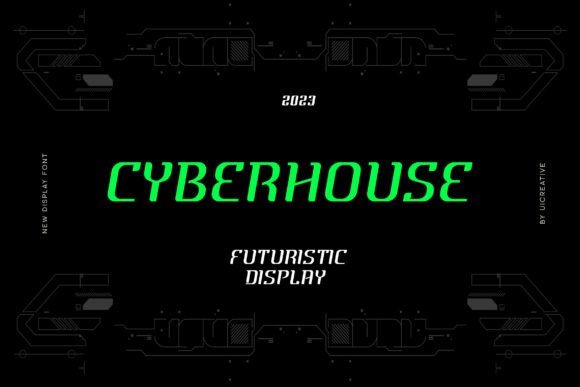
Unlocking the Future of Design: The Allure of Cyber House Font
Have you ever stared at a blank page, waiting for the perfect font to spark your creativity? That’s exactly what happened to me when I discovered the Cyber House Font. Its sleek, futuristic design was like a key that unlocked a world of possibilities.
The Cyber House Font is a modern display font that exudes elegance and sophistication. Designed to make a statement, it’s perfect for a wide range of projects, from signature and stationery to logo design and magazine covers. What sets it apart is its ability to seamlessly blend masculine and feminine qualities, making it a valuable asset for designers who want to create visually stunning pieces.
With its versatility and timeless appeal, the Cyber House Font is a must-have for any designer looking to elevate their work and stay ahead of the curve.
Cyber House Font Key Features
- Character Set: The font includes a comprehensive character set, covering Latin, Cyrillic, and Greek alphabets, as well as a range of punctuation marks and symbols.
- Unique Characteristics: Cyber House Font features a futuristic, high-tech aesthetic with geometric shapes and bold lines, making it ideal for sci-fi, tech, and gaming projects.
Cyber House Font Review
I recently had the chance to work with the Cyber House Font, and I’m excited to share my honest thoughts with you. ✨ One thing that really stands out about this font is its unique blend of futuristic and retro elements. The subtle neon accents and rounded edges give it a truly distinctive look that’s sure to grab attention.
Another aspect that I appreciate about the Cyber House Font is its versatility. It works well for a variety of applications, from futuristic sci-fi projects to retro-futuristic art pieces. I’ve found it to be particularly effective for creating eye-catching headlines and titles.
While the Cyber House Font has a lot to offer, there are a few limitations that I want to mention. ⚠️ First, the font may not be the best choice for body text, as it can be a bit too ornate and overwhelming for large blocks of text. Additionally, the font’s unique style may not be to everyone’s taste, and some users may find it too flashy or over-the-top.
Here are a few things to keep in mind when using the Cyber House Font:
- It’s best used for headings and titles, rather than body text.
- Be mindful of the font’s unique style and ensure it aligns with your project’s overall aesthetic.
- Consider pairing the font with a more subdued body text font to avoid overwhelming the reader.
Overall, I think the Cyber House Font is a great choice for designers looking to add some extra flair to their projects. While it may not be suitable for every application, it’s a fantastic option for creating eye-catching headlines and titles. With a little care and attention, this font can add a real wow factor to your designs.
Tips for Getting the Most Out of Cyber House Font
For best results, use Cyber House Font in bold or italic styles to add emphasis and contrast to your text.
Pair Cyber House Font with other futuristic or neon-themed fonts to create a cohesive and eye-catching design.
Cyber House Font is ideal for:
- Futuristic or sci-fi themed designs.
- Neon-lit or retro-futuristic aesthetic designs.
- Technology or gaming related designs.
Alternatives to Cyber House Font
1. Arial Rounded
Arial Rounded is a sans-serif font that offers a softer and more rounded look compared to Cyber House Font. It’s suitable for designs where a friendly and approachable tone is desired. Arial Rounded is more versatile and can be used for both body text and headings, whereas Cyber House Font is more commonly used for headings and titles.